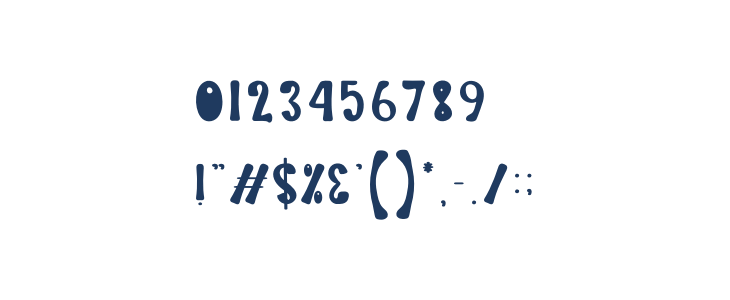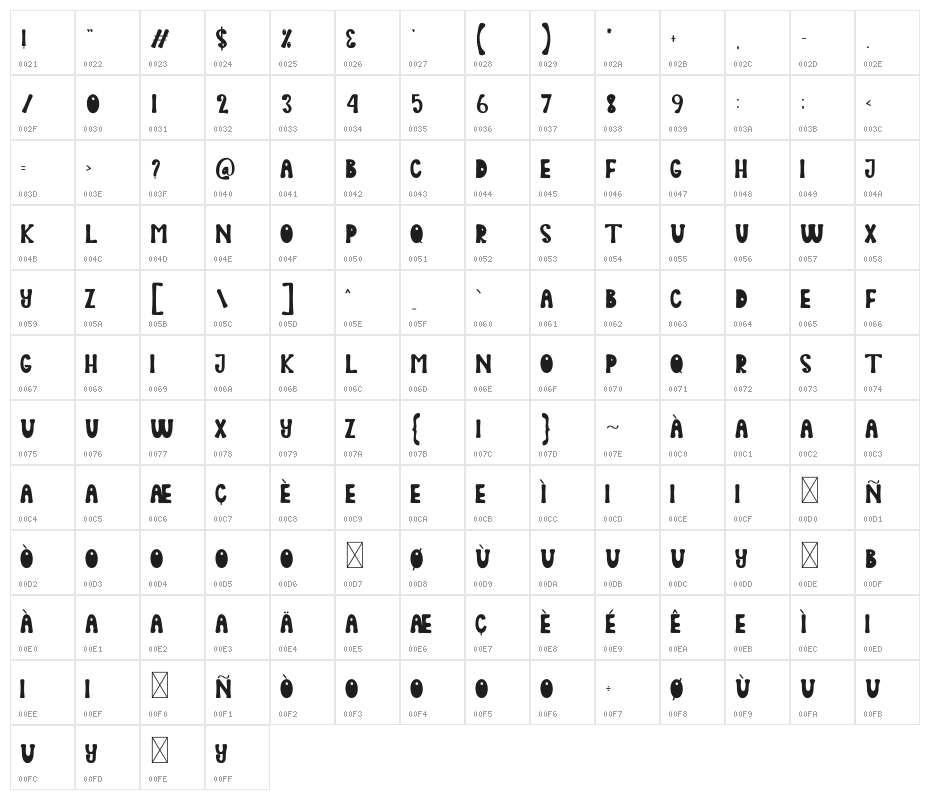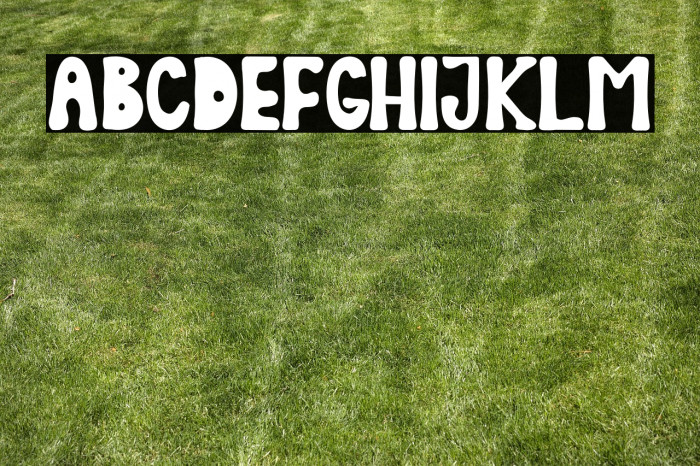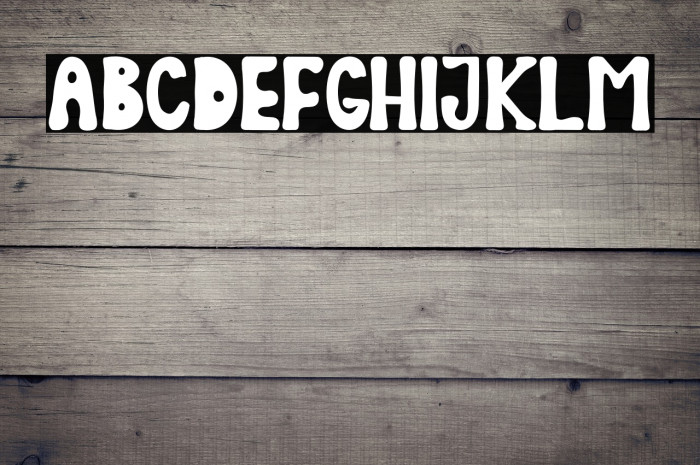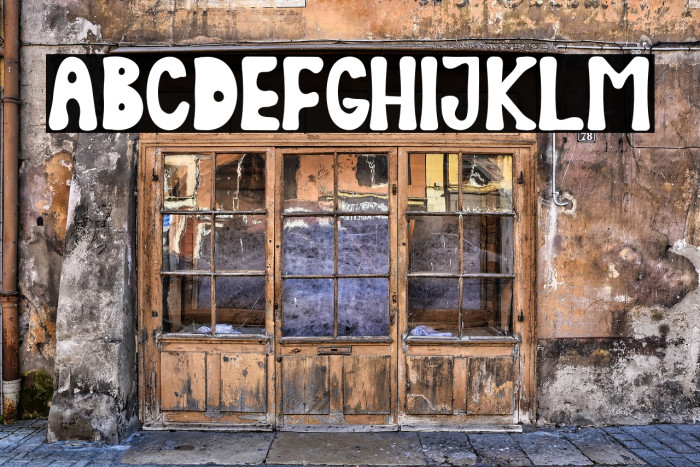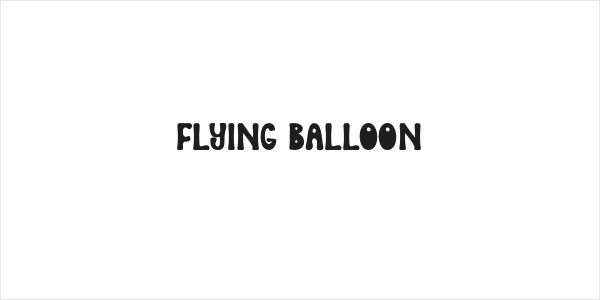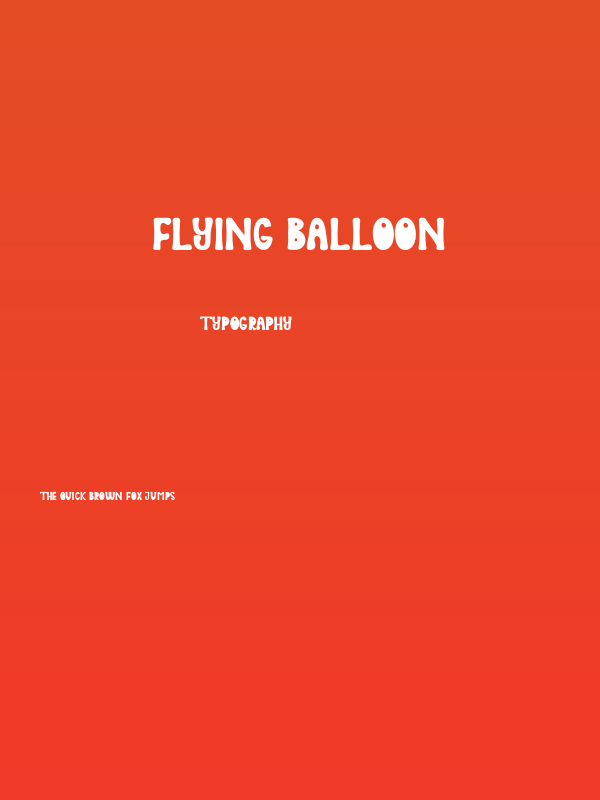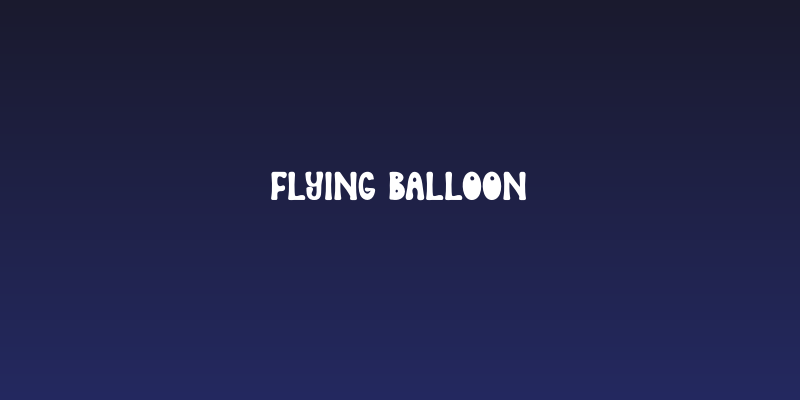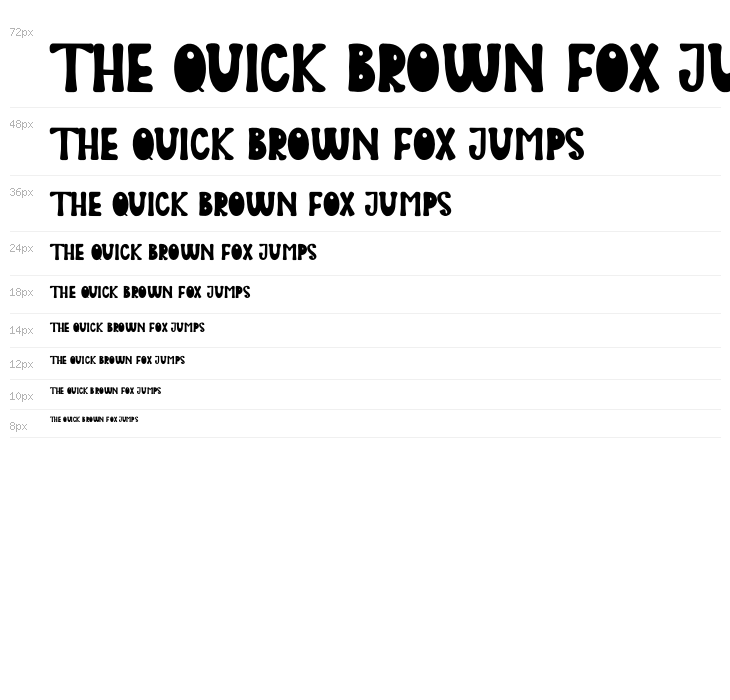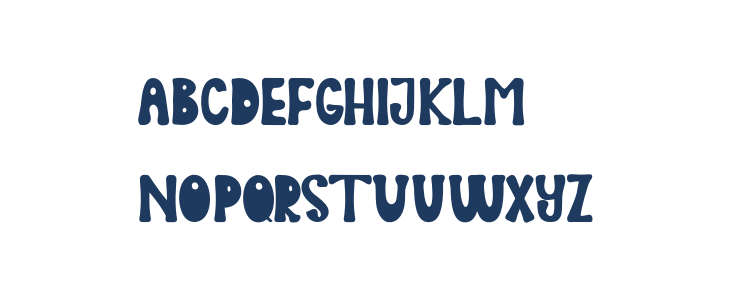
Flying Balloon Font
Flying Balloon Description
This playful and whimsical font features bold, rounded characters that resemble inflated balloons. The letters have a soft, bouncy appearance with smooth curves and a slightly uneven baseline, adding to its fun and informal style. The font maintains a consistent thickness throughout, giving it a uniform look while still retaining a sense of movement and lightheartedness. The numbers and special characters follow the same design principles, ensuring a cohesive appearance across all glyphs. This font is perfect for projects that require a touch of joy and creativity, making it ideal for children's materials, party invitations, or any design that aims to evoke a sense of fun and excitement.
| Proposed Projects | Ideal for children's books, party invitations, playful branding, and creative posters. |